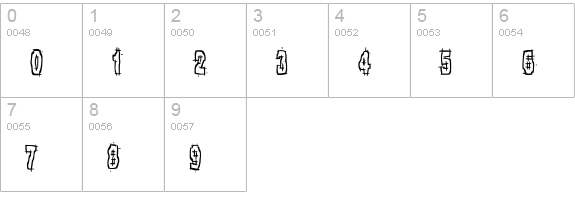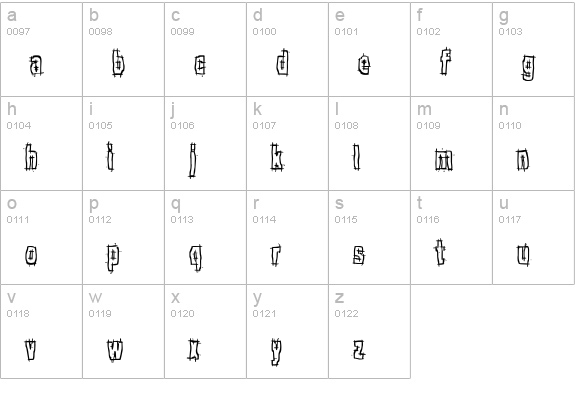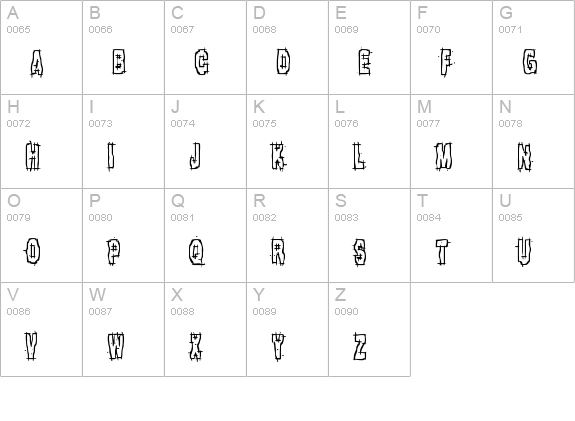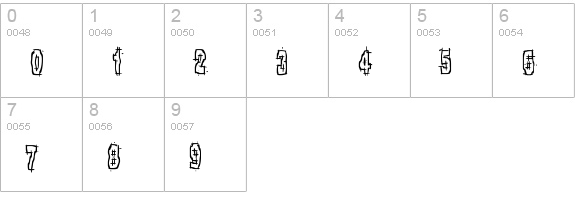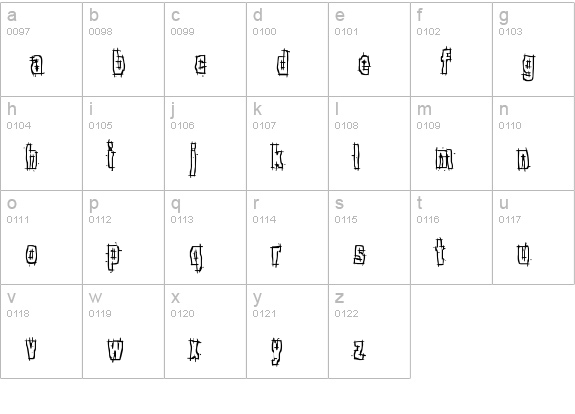
Hack & Slash (BRK) Font Details
Hack & Slash (BRK) font is a stunning typeface that perfectly combines the raw power of a hack and slash adventure with the sleek elegance of modern typography. This font is a true embodiment of the spirit of adventure, with its bold, sharp edges and dynamic letterforms that exude a sense of action and excitement. The Hack & Slash (BRK) font is not only visually striking, but it also offers versatility and functionality. It is designed to be easily readable, making it ideal for a wide range of projects such as logos, headlines, posters, and more. Its unique design elements, including slashed strokes and jagged edges, add a touch of edginess and rebellion to any text. What sets Hack & Slash (BRK) font apart is that it is completely free to use. It is freely available for download at FontsMarket.com, ensuring that anyone can access and utilize this incredible typeface for their creative endeavors. This font allows designers, artists, and enthusiasts to unleash their creativity without any financial constraints, making it a valuable resource for both personal and commercial projects. Whether you are a graphic designer looking to add a touch of adventure to your designs or a content creator in need of a font that embodies action and excitement, Hack & Slash (BRK) font is the perfect choice. With its free availability and captivating design, this font is sure to take your projects to the next level. Don't miss out on the opportunity to download and explore the limitless possibilities offered by this remarkable typeface at FontsMarket.com.